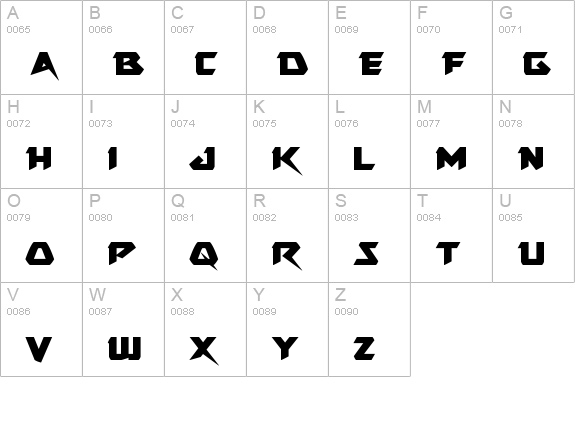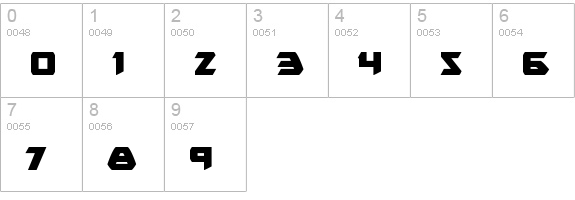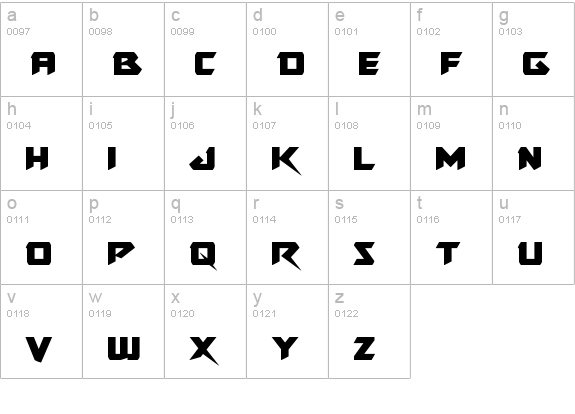
Skirmisher is a donationware font in the Modern > Techno category, designed by Iconian. It has been downloaded 148 times and is available for Windows, Mac and Linux.
Skirmisher font is a versatile and dynamic typeface that exudes energy and movement. With its sharp angles and bold lines, this font is perfect for adding a touch of edginess to your designs. Whether you're creating posters, logos, or branding materials, Skirmisher font will make a bold statement.